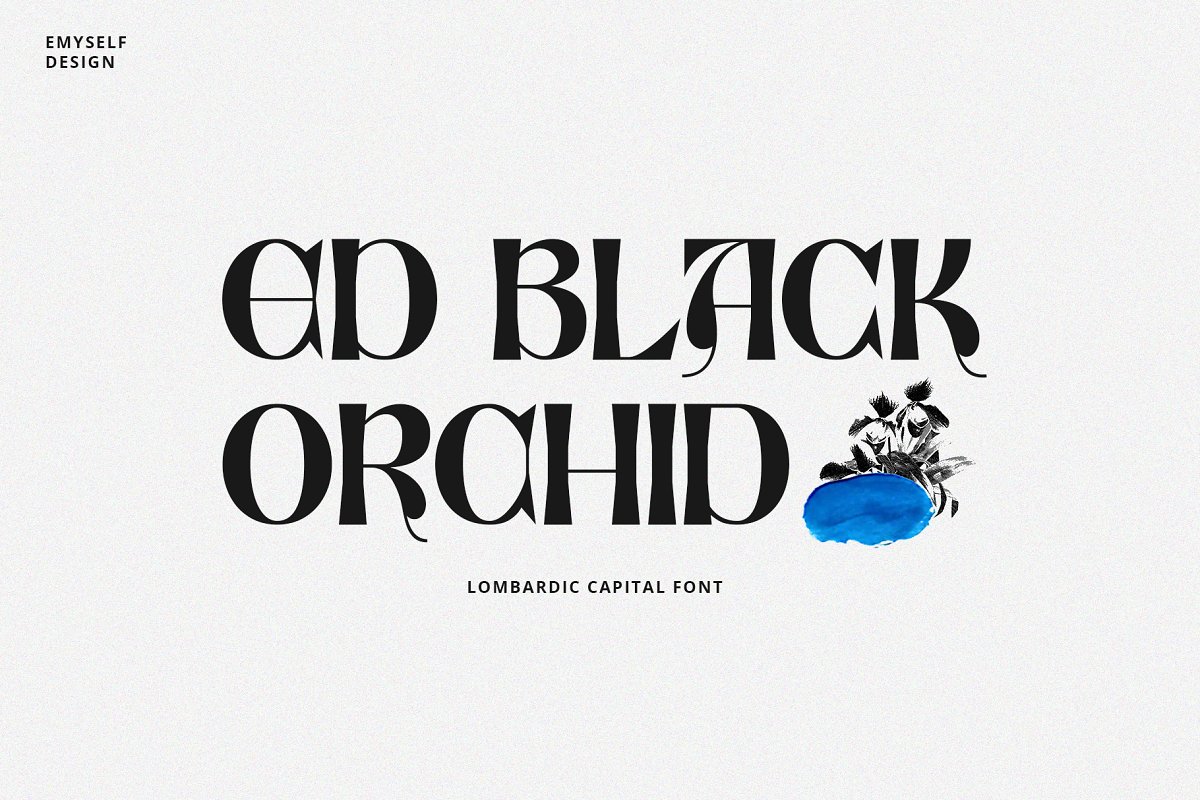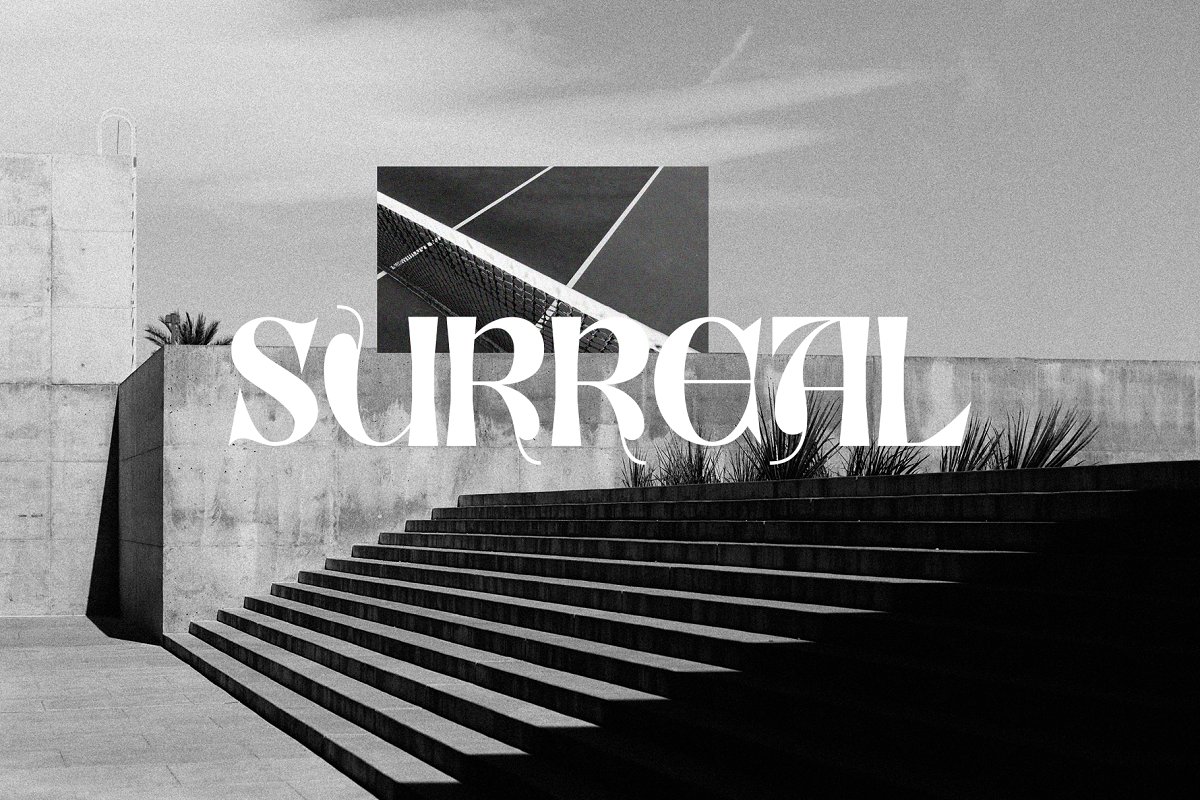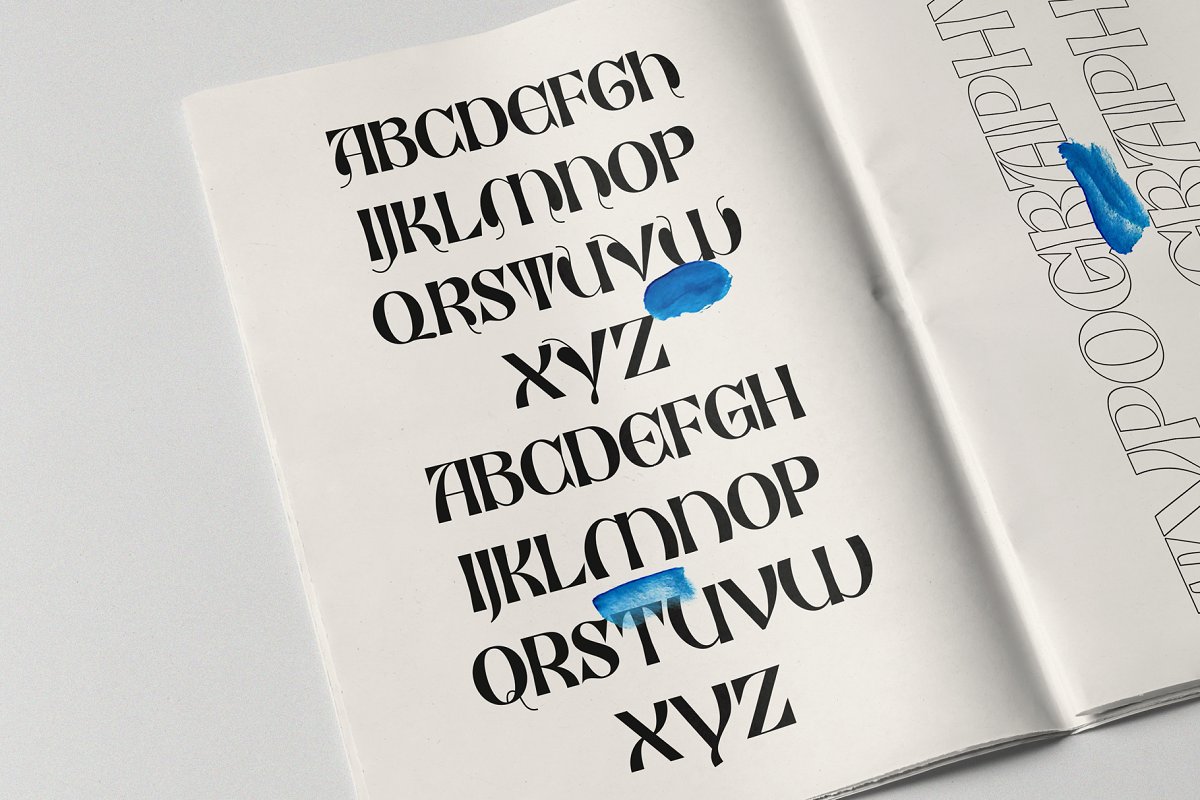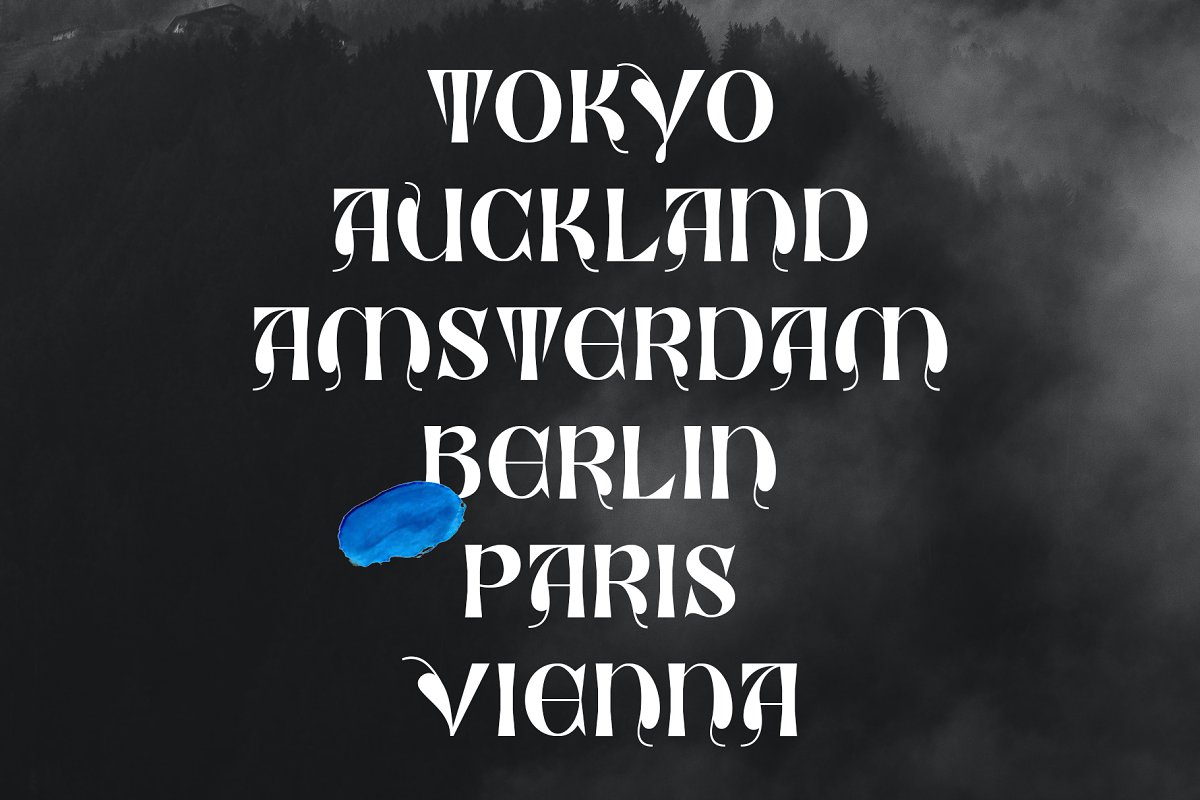
About the ED Black Orchid
ED Black Orchid is a lombardic font which consists of uppercase letters, This font is designed to be simpler, which was inspired by several social media posts and letter books, There are two styles in this font, namely regular and outline to make it easier to use for work, You can use this font for your needs such as poster design, branding, logos, apparel, book, cards, etc